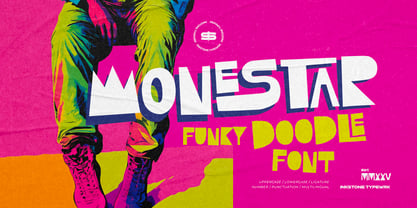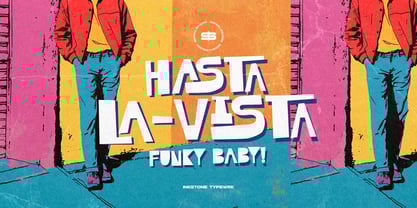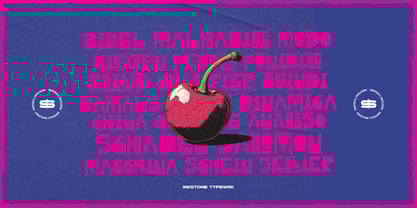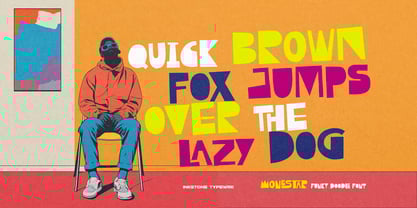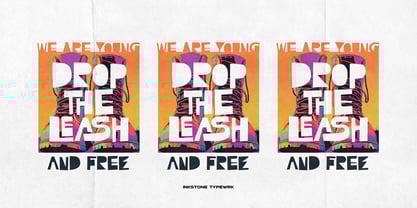
Monestar
by Inkstone Typewrk
The Monestar Font Family was designed by Andhika Pradana, Yono Asmadiputra and published by Inkstone Typewrk. Monestar contains 1 styles. More about this family
Monestar - Funky Doodle Font
Get ready to break the rules with Monestar, a bold, funky doodle font packed with hip, handmade energy! With its geometric style and free-flowing strokes, this typeface delivers the perfect mix of rebellious charm and trendy aesthetics, making every design pop with personality.
Whether you're crafting edgy branding, playful posters, standout merch, or eye-catching social media graphics, Monestar keeps it bold, stylish, and full of attitude. Inspired by street art, indie culture, and energetic doodles, this font is a statement-maker for those who love to stand out.
Designers: Andhika Pradana, Yono Asmadiputra
Foundry: Inkstone Typewrk